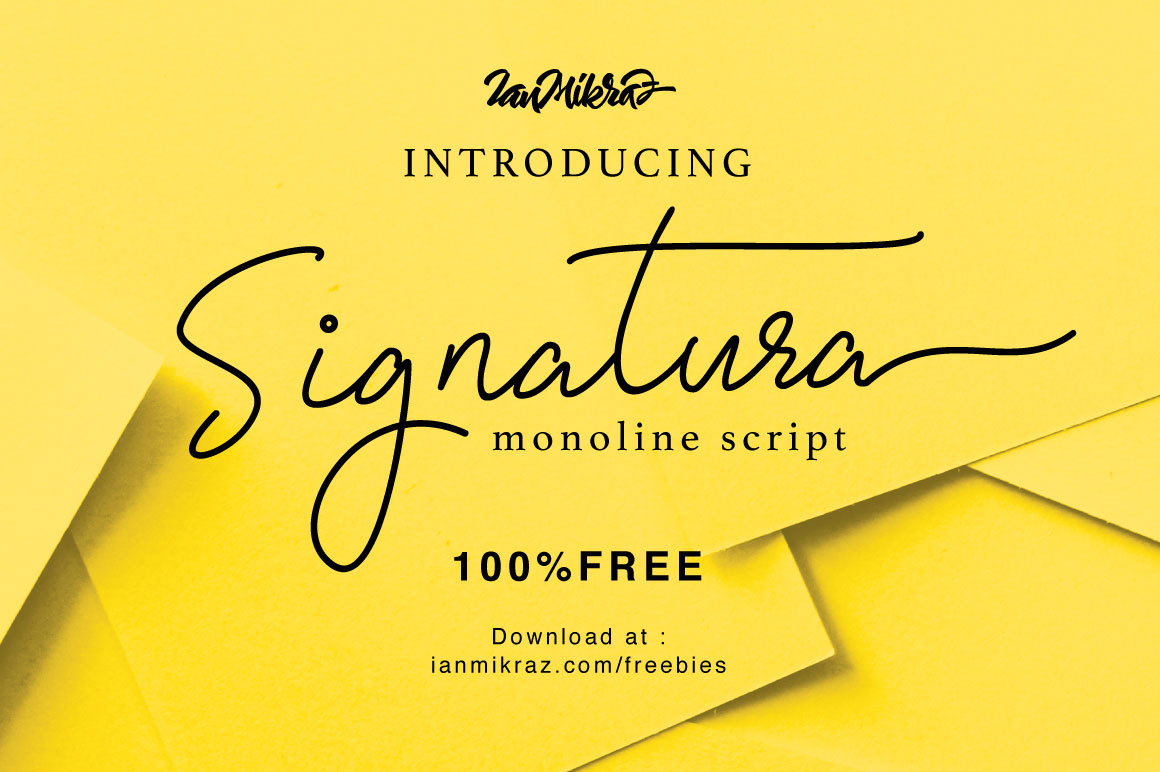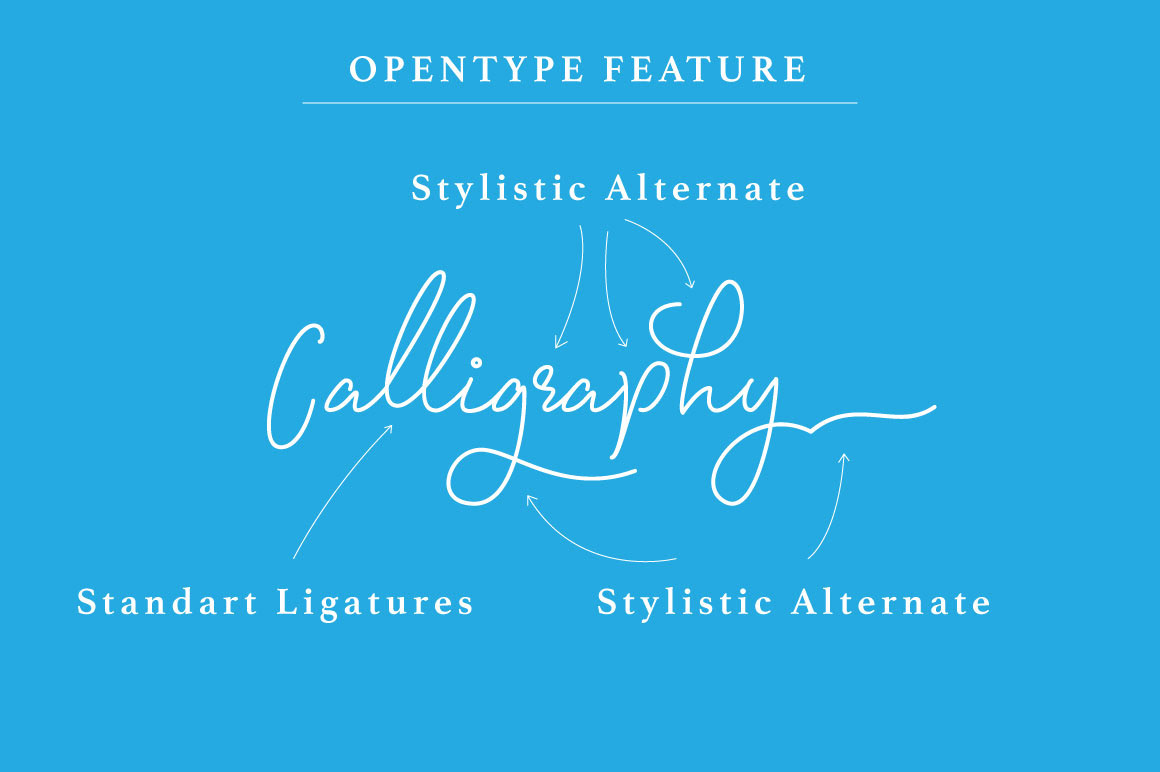
Introducing Signatura Monoline Free Typeface
Signatura Monoline Free Typeface is a new modern calligraphy Typeface Fonts collection from Ianmikraz studio, combines from copperplate to contemporary typeface, classic, beauty and elegant touch.
Signatura Monoline Free Typeface features 266 glyphs and 86 alternate character contain with opentype features. Stylistic Alternates, Standart Ligature and more. You can access all those alternate characters by using OpenType savvy programs such as Adobe Illustrator, Adobe InDesign and CorelDraw X6-X7.
Signatura Monoline Free Typeface for Apparel Brand, any greeting cards, Painting design style, or any design that needs natural and personal touch. Mix and match the alternate characters to add an attractive message to your design.